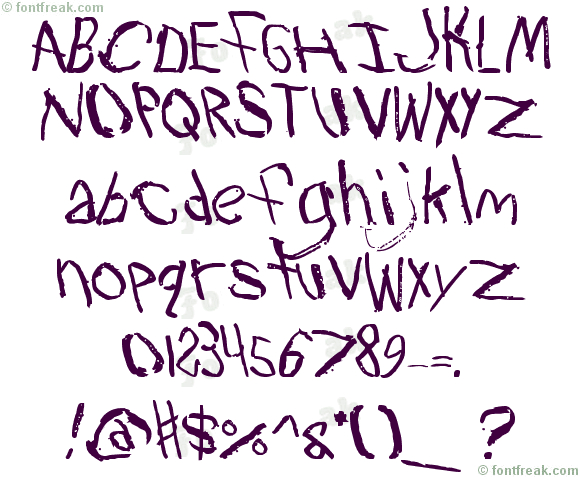
Travesty Bold
Travesty
About Travesty Bold
Travesty Bold, designed by Daniel Zadorozny in 2003, is a unique display font that falls under the decorative category. This typeface features an engaging, hand-drawn aesthetic, characterized by its bold and whimsical strokes. The irregularities in stroke weight give it a dynamic feel, while the playful spacing between letters adds to its artistic charm. The font's decorative elements evoke a sense of spontaneity and creativity, making it an excellent choice for projects that require a touch of personality.
This font is particularly well-suited for a variety of creative applications. For instance, it can be effectively used in wedding invitations, where its bold and playful style can convey a sense of joy and celebration. Movie posters also benefit from the distinctive flair of Travesty Bold, as it captures attention and adds a dramatic touch. Additionally, restaurant menus can leverage this font to create an inviting and casual atmosphere, appealing to customers looking for a relaxed dining experience. Graphic designers and content creators will find this font invaluable for branding projects and social media graphics, where a unique identity is essential.
Targeting graphic designers, small business owners, and content creators, Travesty Bold offers a free and versatile solution for those looking to make a statement. Its distinctive style not only stands out but also enhances the visual impact of any project it graces. If you are in search of a font that combines artistry with boldness, look no further than Travesty Bold. With its engaging characteristics and diverse applications, the Travesty Bold font free download is a must-have for anyone aiming to elevate their designs.